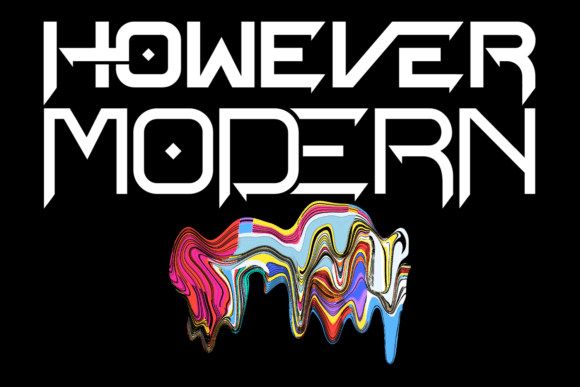
Casual Passion Font: Elevate Your Designs with a Futuristic Twist
In the realm of typography, fonts play a pivotal role in shaping the visual identity of a brand or design. With the ever-evolving landscape of graphic design, the demand for unique and futuristic fonts has surged. This is where the Casual Passion Font comes into play, a game-changer in the world of typography. Designed with a distinct and original touch, this font is tailored for various types of future designs, making it a versatile choice for designers and brands alike.
What is Casual Passion Font?
Casual Passion is a futuristic font that embodies a hi-tech logo inspired aesthetic, characterized by its unique and futuristic looks. This strong and sophisticated font is engineered to make a statement, making it exceptionally suitable for a wide range of applications. From logos and headlines to typography, posters, magazines, brochures, packaging, websites, and more, Casual Passion Font is the go-to choice for designers seeking to infuse their work with a modern and edgy vibe.
Key Features of Casual Passion Font
- Unique and Original Design: The Casual Passion Font boasts a design that is both unique and original, setting it apart from the myriad of fonts available in the market.
- Futuristic Aesthetic: With its futuristic looks, this font is perfect for designs that aim to convey innovation, technology, and forward-thinking.
- Versatility: Its versatility makes it suitable for a variety of design projects, ranging from digital to print.
- High-Tech Logo Inspiration: The font draws inspiration from hi-tech logos, making it an excellent choice for brands and products in the technology sector.
- Sophistication and Strength: The font exudes sophistication and strength, making it ideal for making bold statements in designs.
Applications of Casual Passion Font
The Casual Passion Font’s adaptability and striking appearance make it suitable for a myriad of applications. Here are some of the key areas where this font can make a significant impact:
- Logos: Create memorable and impactful logos that stand out in the digital and print landscape.
- Headlines and Typography: Use the font for headlines and typography to add a touch of futurism and sophistication.
- Posters and Magazines: Elevate your posters and magazine designs with a font that captures attention and conveys a sense of modernity.
- Brochures and Packaging: Enhance your brand’s print materials with a font that exudes professionalism and innovation.
- Websites: Incorporate the Casual Passion Font into your website design to create a cohesive and futuristic online presence.
Why Choose Casual Passion Font?
In a sea of fonts, Casual Passion stands out due to its distinctive features and the value it offers to designers and brands. Here are some compelling reasons to choose Casual Passion Font for your next design project:
- Uniqueness: The font’s unique design ensures that your project stands out from the crowd.
- Relevance: Its futuristic and hi-tech inspiration makes it particularly relevant for projects in the tech industry and those aiming for a modern aesthetic.
- Versatility: The font’s versatility in application makes it a valuable addition to any designer’s toolkit.
- Impact: The font’s ability to make a statement and draw attention can significantly enhance the impact of your design.
How to Use Casual Passion Font Effectively
To maximize the potential of Casual Passion Font, consider the following tips:
- Pair with Complementary Fonts: When using Casual Passion Font in combination with other fonts, choose fonts that complement its futuristic and bold nature.
- Consider Context: Ensure that the font’s message aligns with the context and purpose of your design.
- Adjust Size and Color: Experiment with different sizes and colors to optimize the font’s impact and readability.
- Maintain Consistency: For multi-page documents or extensive design projects, maintain font consistency to build a cohesive visual identity.
Casual Passion Font emerges as a revolutionary typeface that brings a fresh perspective to the world of design. Its unique blend of futurism, sophistication, and versatility positions it as an indispensable asset for designers aiming to push the boundaries of creativity. Whether you’re working on a logo, website, or print materials, Casual Passion Font offers the potential to elevate your designs and make a lasting impression. Embrace the future of typography with Casual Passion Font and unlock new dimensions of visual expression.
FAQs About Casual Passion Font
- What makes Casual Passion Font unique?
- Casual Passion Font’s unique and original design, coupled with its futuristic and hi-tech inspiration, sets it apart from other fonts.
- Is Casual Passion Font suitable for digital use?
- Yes, Casual Passion Font is versatile and suitable for both digital and print applications.